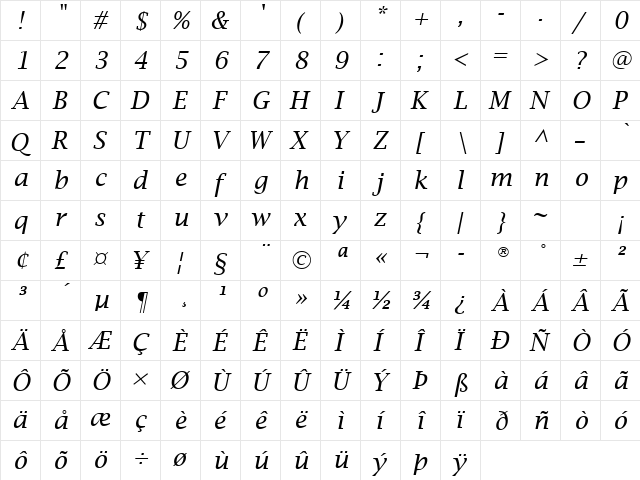
Lucida Bright Italic Font Preview
Lucida Bright Italic
Lucida Bright Italic Font Details
Design Context for Lucida Bright Typeface
Lucida Bright offers clean, dependable letterforms without strong stylistic allegiance, making it a practical choice for designers who need flexibility. The slanted form adds forward momentum and visual energy.